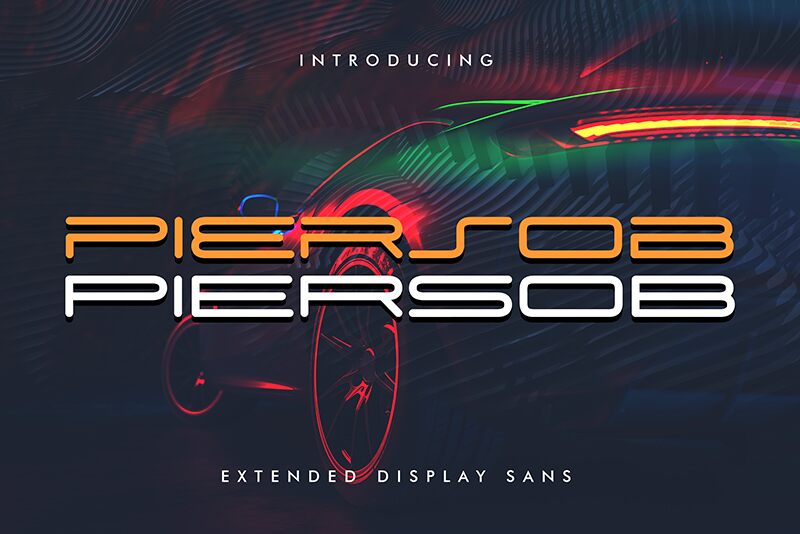
Piersob
Introducing Piersob, the newest addition to the Almarkhatype family. Crafted by Abdul Malik and Adriansyah in 2021, this sans serif font boasts a light weight and ultra-wide structure that's perfect for making a bold statement in your designs. With its clean lines and modern aesthetic, Piersob is suitable for a wide range of projects - from minimalist logos to eye-catching headlines. Whether you're creating posters, packaging or websites, this font is sure to leave an impression on your audience. So why settle for ordinary when you can make a statement with Piersob?